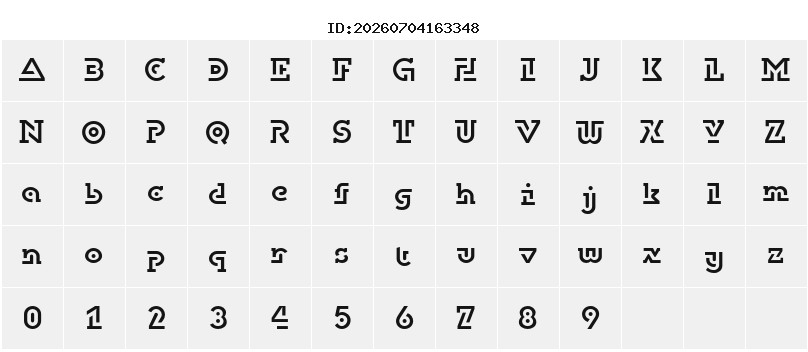
About DublonBrusC.otf
DublonBrusC.otf is a modern, elegant sans-serif font designed for ultimate readability and visual harmony. Perfect for branding, headlines, web design, and print materials.